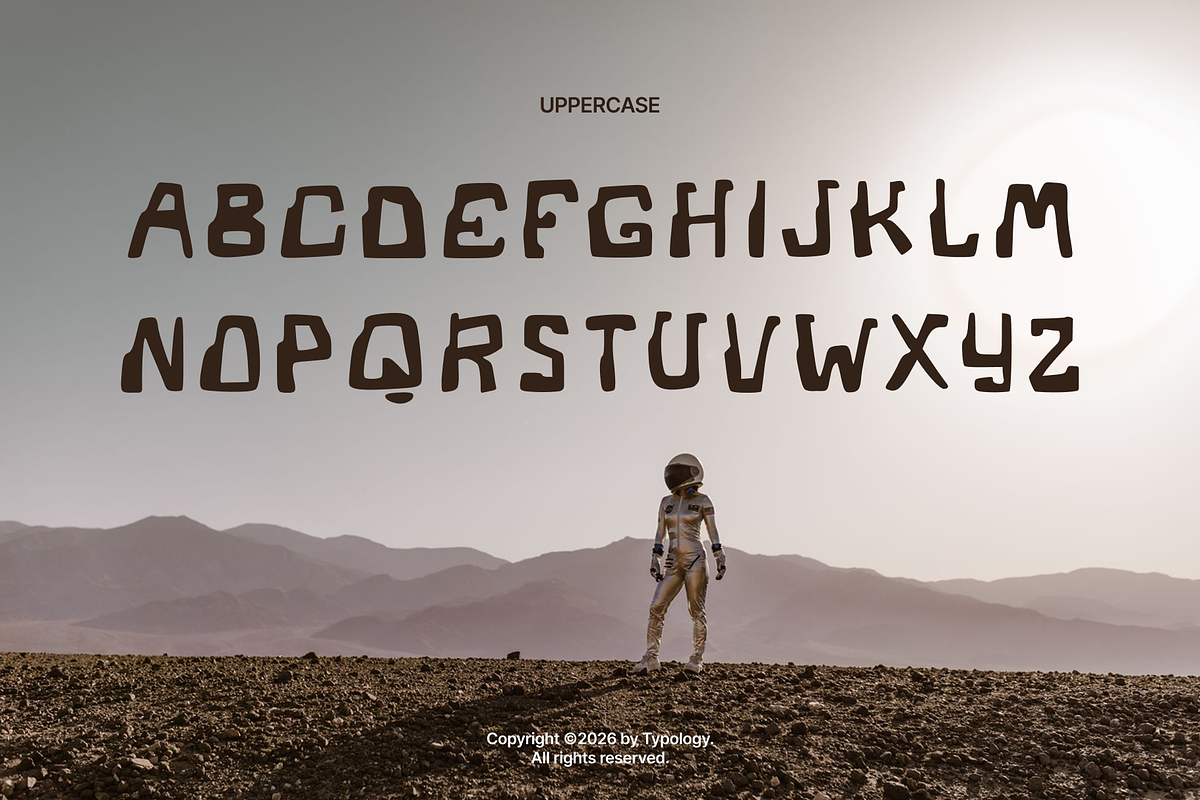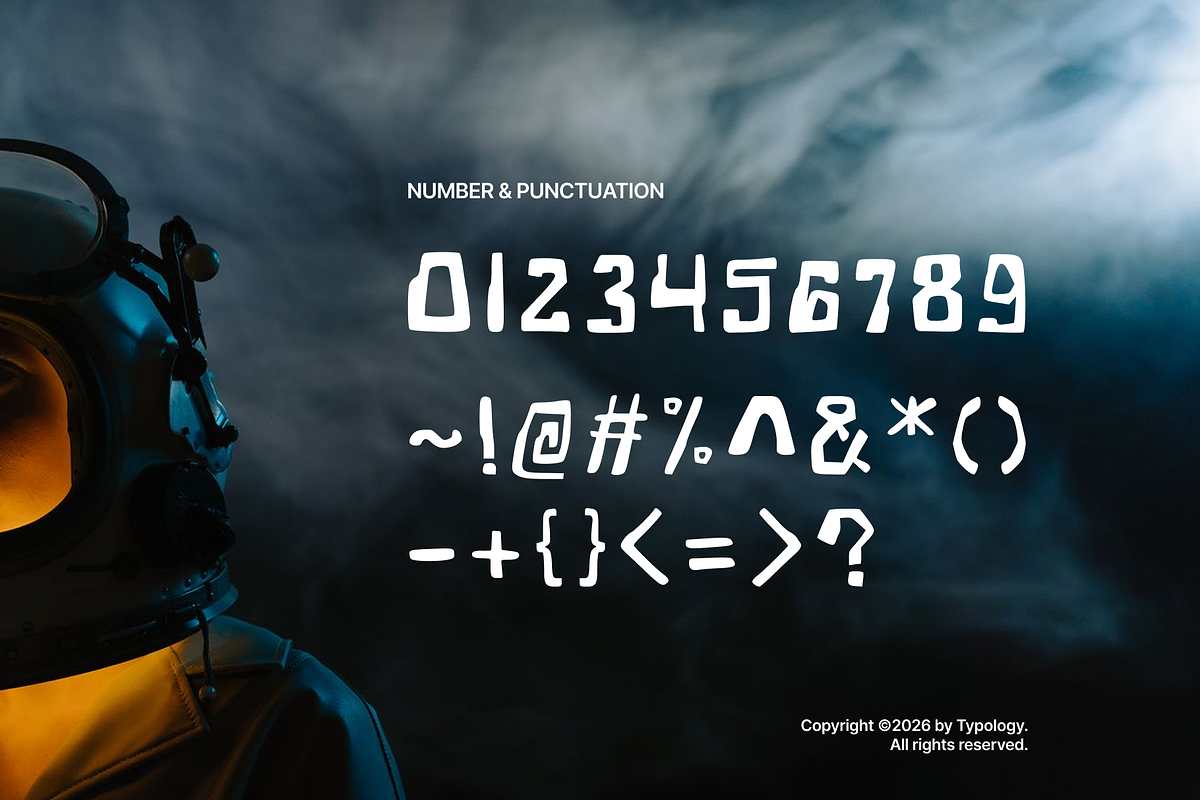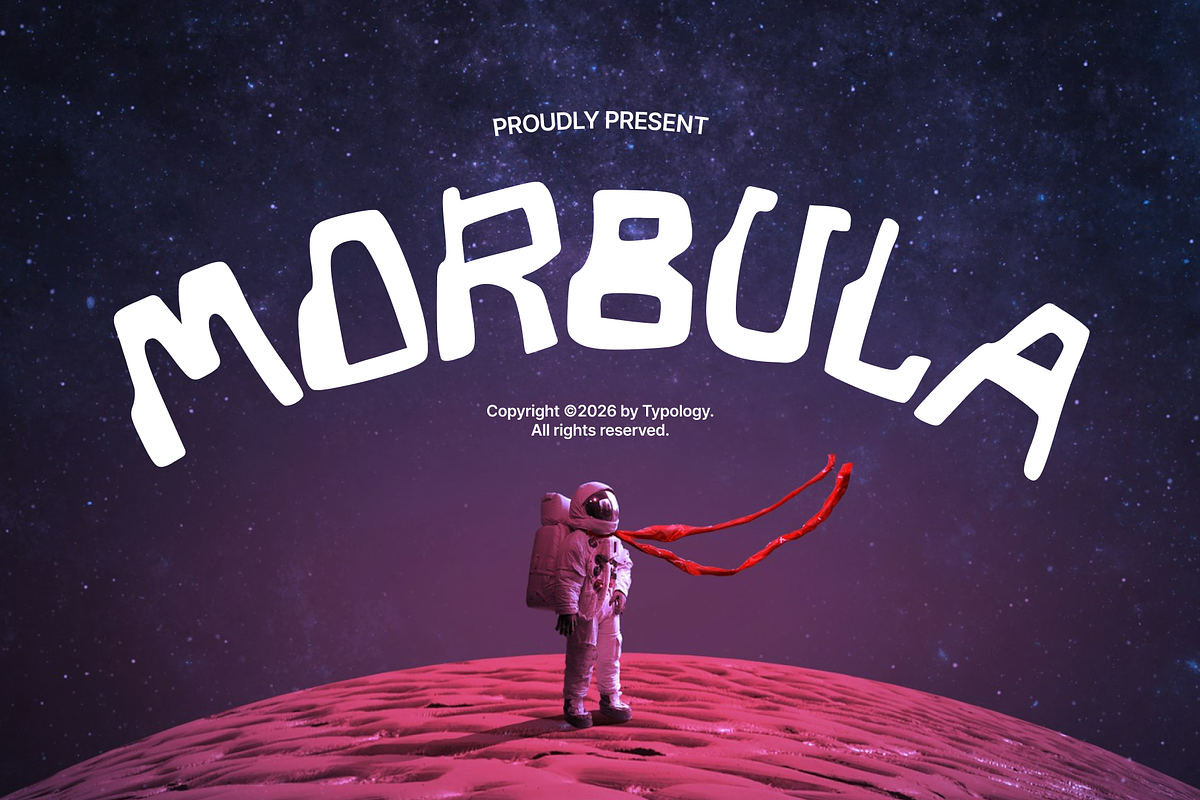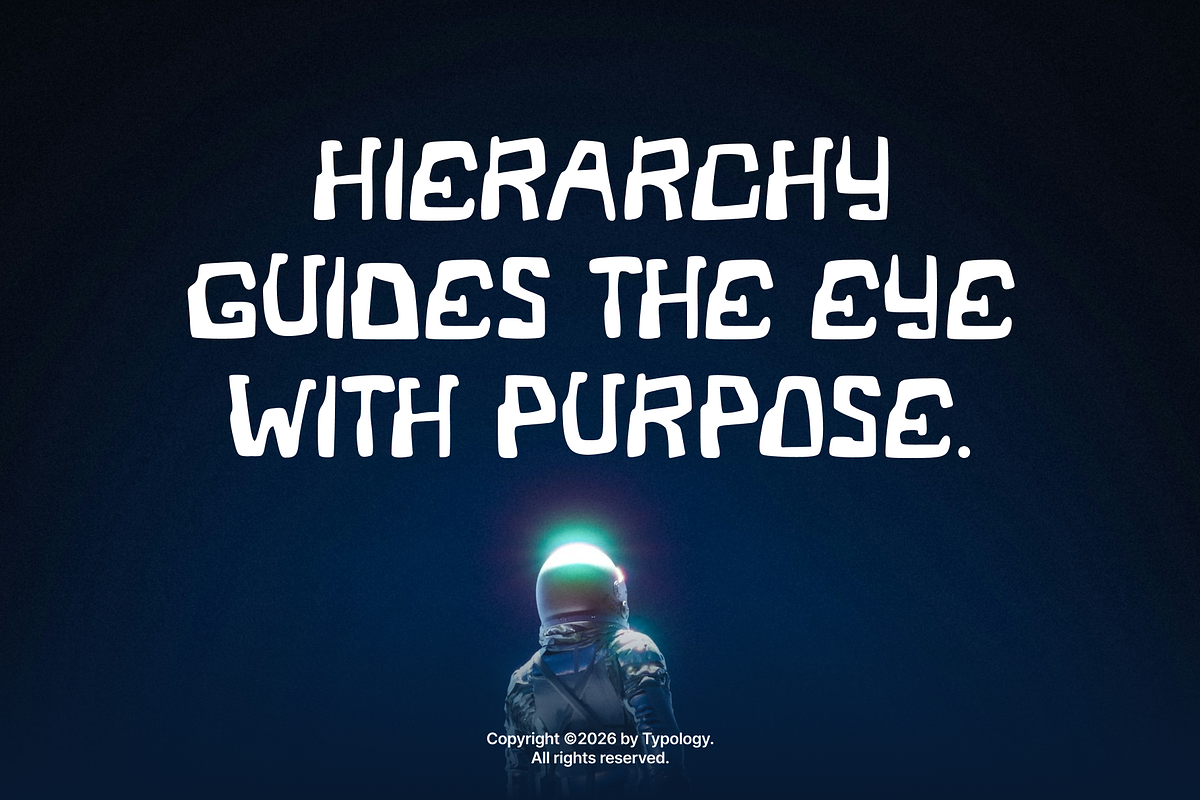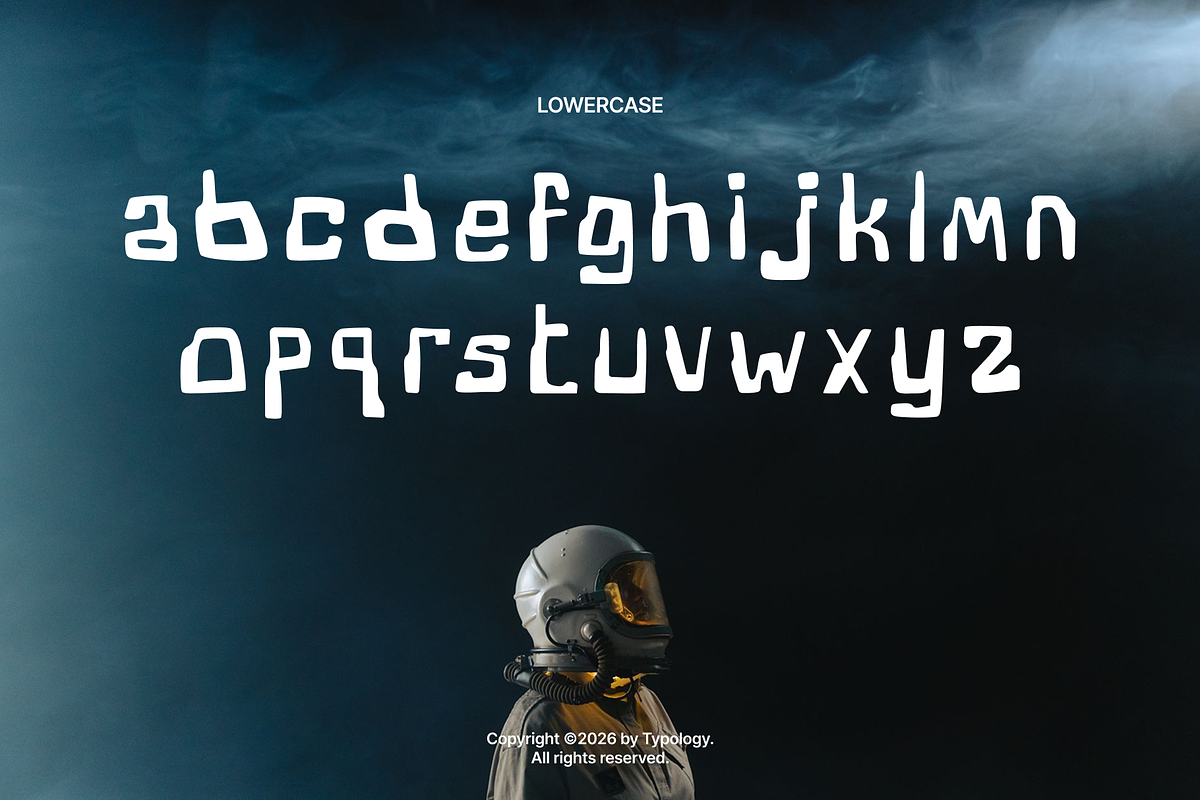
Morbula
Morbula is a bold and experimental display font designed to bring personality, energy, and a futuristic edge to your typography. With its chunky letterforms, playful irregular shapes, and distinctive geometric details, Morbula creates an eye-catching look that feels both retro-inspired and boldly futuristic.
Designed for headlines and statement typography, Morbula works beautifully when you want your words to become the main visual element. Its unconventional shapes give every letter a unique character while maintaining a strong and readable overall presence.
Perfect for posters, album covers, branding, logos, editorial designs, packaging, apparel, social media graphics, gaming projects, sci-fi artwork, movie titles, and creative advertising.
Morbula is especially suitable for projects that need a bold, experimental, playful, futuristic, or space-inspired aesthetic.
Morbula is a great choice for:
Posters & promotional graphics
Logo & brand identity
Album & music artwork
Apparel & merchandise
Editorial headlines
Packaging design
Gaming & esports projects
Sci-fi & space-themed designs
Movie & event titles
Creative advertising
Experimental typography
Give your next design a bold visual voice with Morbula — a display typeface made to stand out.